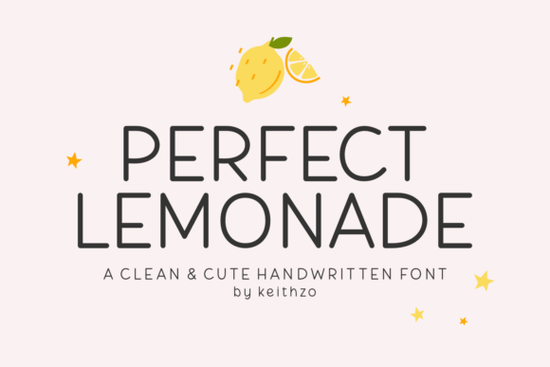
If you’ve been hunting for a handwriting font that feels as fresh and easygoing as a sunny afternoon, the Perfect Lemonade typeface might be exactly what your next project needs. It’s a clean, cheerful sans-serif with a personality that sits right between playful and polished the kind of lettering that makes planner pages, stickers, and social graphics feel warmly handmade without looking messy.
What kind of projects shine with a bubbly handwritten font like Perfect Lemonade?
Perfect Lemonade’s smooth, rounded strokes give it an approachable energy that works across print and digital media. Because each letter connects naturally, words flow like something you’d jot down in a favorite journal. Small-business owners often use it for product labels, thank-you cards, and branding accents where they want to feel personal but still professional.
Here are a few places where this style truly belongs:
- Planner and journal designs – The relaxed rhythm of the font makes daily spreads, habit trackers, and bullet journal headers feel calm and inviting.
- Sticker packs and decals – Bold yet soft letterforms hold up well when cut with Cricut or Silhouette machines, keeping small text readable.
- Greeting cards and invitations – The handcrafted look adds warmth to birthday cards, baby shower invites, and holiday messages.
- Social media posts and Pinterest pins – The clear, upright letters stay easy to read on phone screens, which is a huge plus for quick-scroll platforms.
- Print-on-demand merch – T-shirts, tote bags, and mugs benefit from a font that looks custom without being overly decorative.
How does a handwritten sans-serif compare to a script or serif font?
Many crafters hesitate between a flowing script and a neat print font. Perfect Lemonade fills the gap. Unlike traditional scripts, there’s no slant and no complicated ligatures each character stands upright and clean. That makes it far easier to space and align, especially on straight items like bookmarks, return address labels, or website headers. Compared to a crisp serif, it swaps formality for a friendly, human touch that suits modern branding beautifully.
If you’ve used Kohilo for a more geometric, minimalist look, or reached for Summer Marker when you want bold marker energy, you’ll find Perfect Lemonade leans softer and more consistent almost like a hybrid between handwriting and a cheerful sans-serif. Another font to explore in the same handwritten family is Cultivo, which offers a slightly more organic, brush-written texture.
Is Perfect Lemonade easy to read at small sizes?
One of the first things any DIY designer checks is legibility when shrunk down. The unconnected, clear shapes of Perfect Lemonade keep it highly readable even at 10pt or below, which makes it a smart pick for product ingredient lists, small price tags, or digital planner stickers where you can’t afford fuzzy letters. The even x-height and open counters (the spaces inside a, e, and o) prevent letters from closing up on screen or in print.
Test it on a mockup before committing: set a short phrase at the smallest size you’ll commonly use, then view it at actual print dimensions. You’ll likely notice that the bubbly style stays crisp without turning into a blob a problem that plagues many thin script fonts.
What font pairings work best with such a playful style?
Because Perfect Lemonade is already full of character, it shines when paired with something simple and grounded. Let the handwriting do the talking for headlines and accents, then keep the body text neutral. A few combinations that feel balanced and designer-tested:
- Headline: Perfect Lemonade + Body: a clean geometric sans like Montserrat or Open Sans
- Logo wordmark: Perfect Lemonade for the name + a thin, all-caps sans for the tagline
- Planner headings: Perfect Lemonade + a simple monoline print such as Cutive or JMH Typewriter for checklists
- Greeting card inside message: Perfect Lemonade for the main sentiment + an italic serif for a postscript
You can also mix it with other handwritten fonts from your collection, but stick to just one decorative font per design to avoid visual clutter.
Does it support multilingual characters and punctuation?
Yes, Perfect Lemonade includes a solid range of Latin-based accents, numbers, and common symbols. That means you can comfortably use it for projects in Spanish, French, German, Portuguese, and other European languages without losing the cheerful uniformity. Punctuation marks, from ampersands to exclamation points, match the bubbly aesthetic so your “I love you!” mugs and “Felicidades” cards stay on-brand.
Ready to add a soft, hand-crafted feel to your next batch of designs? Start experimenting with Perfect Lemonade’s relaxed handwriting and watch how quickly it brings a sense of calm, creative energy to everything you make.